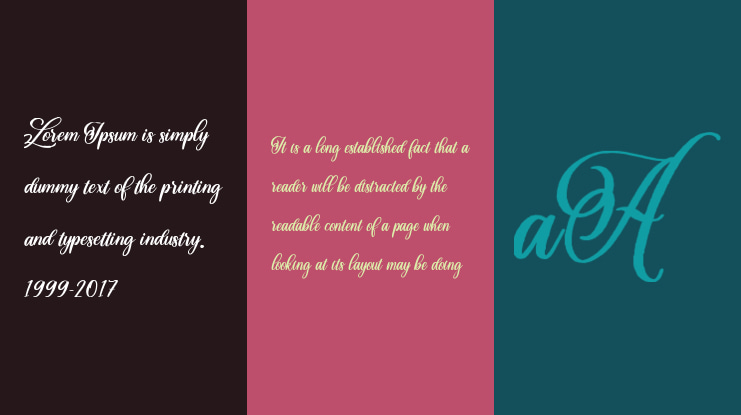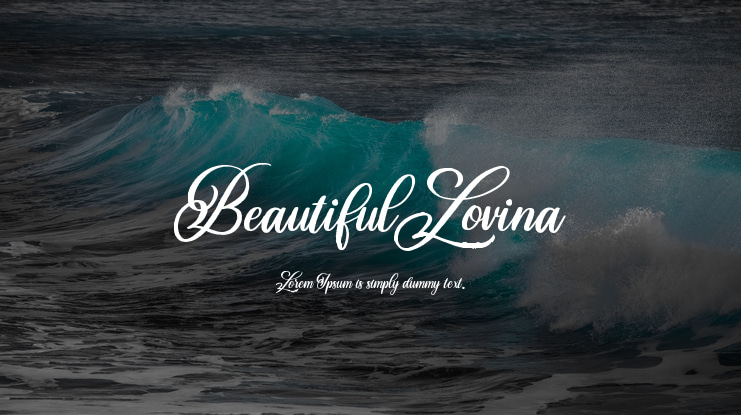
Beautiful Lovina Font
Alit Suarnegara
Introducing Lovina Font Family is our first Font in 2019, has a handwritten script style with a touch of natural rough from the shape of the brush. For Scripts, Lovina fonts have 2 choices namely "Lovina Regular" and "Lovina 2 Regular" in this font script there are many alternative choices of characters from Swash Lowercase, SS01 to SS06.
For Lovina Sans Serif has 4 styles, namely, Lovina Sans Serif Regular, Italic, Rough and Rough Italic. In addition, Lovina Fonts Family also includes Lovina Swash which is a lot of choices and unique. If the total of all families has 3,603 Glyphs
Lovina Fonts Family is very worthy of being the newest collection in 2019 as a project design creation, social media quote, badges, logotype, fashion design etc.